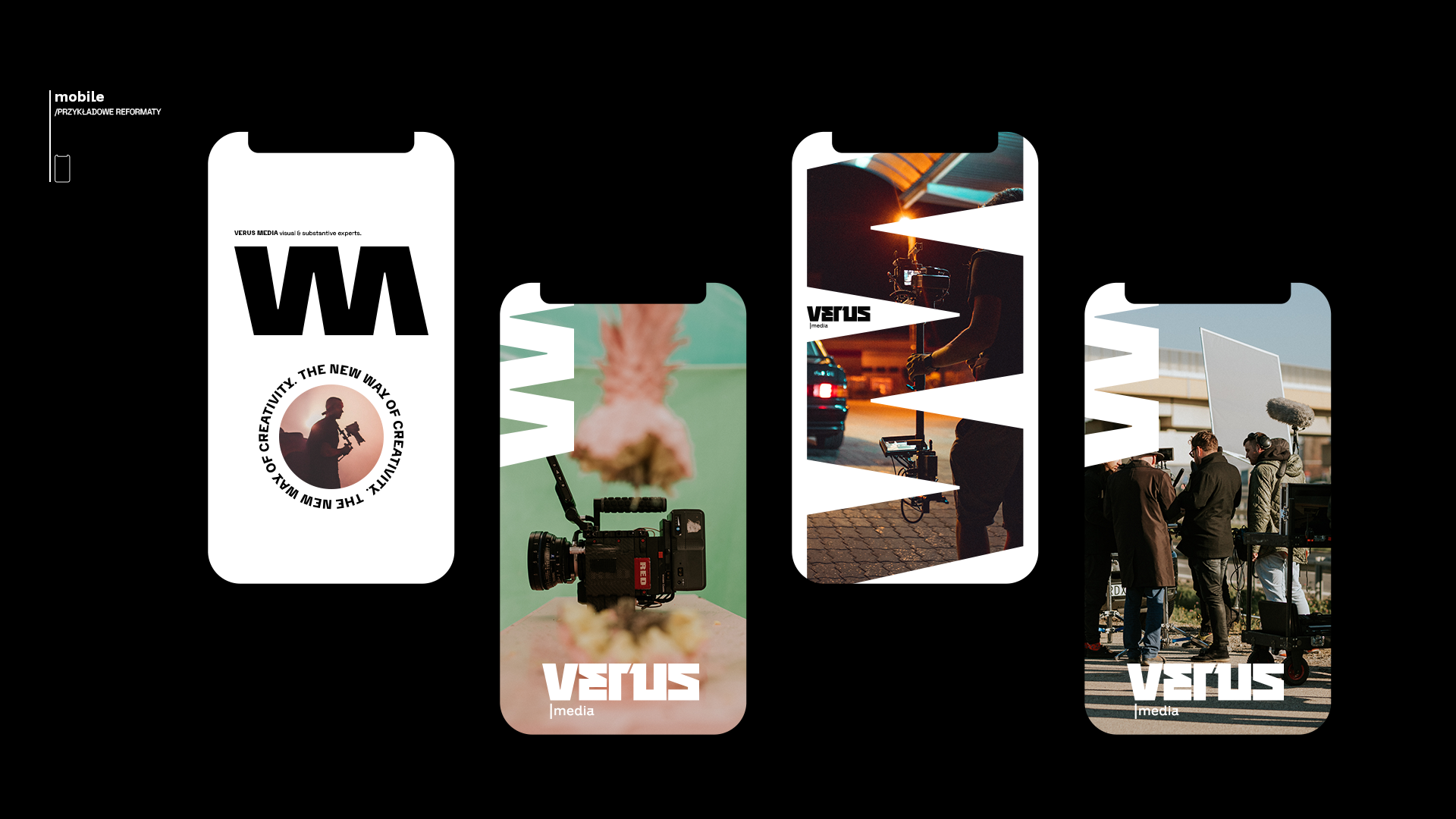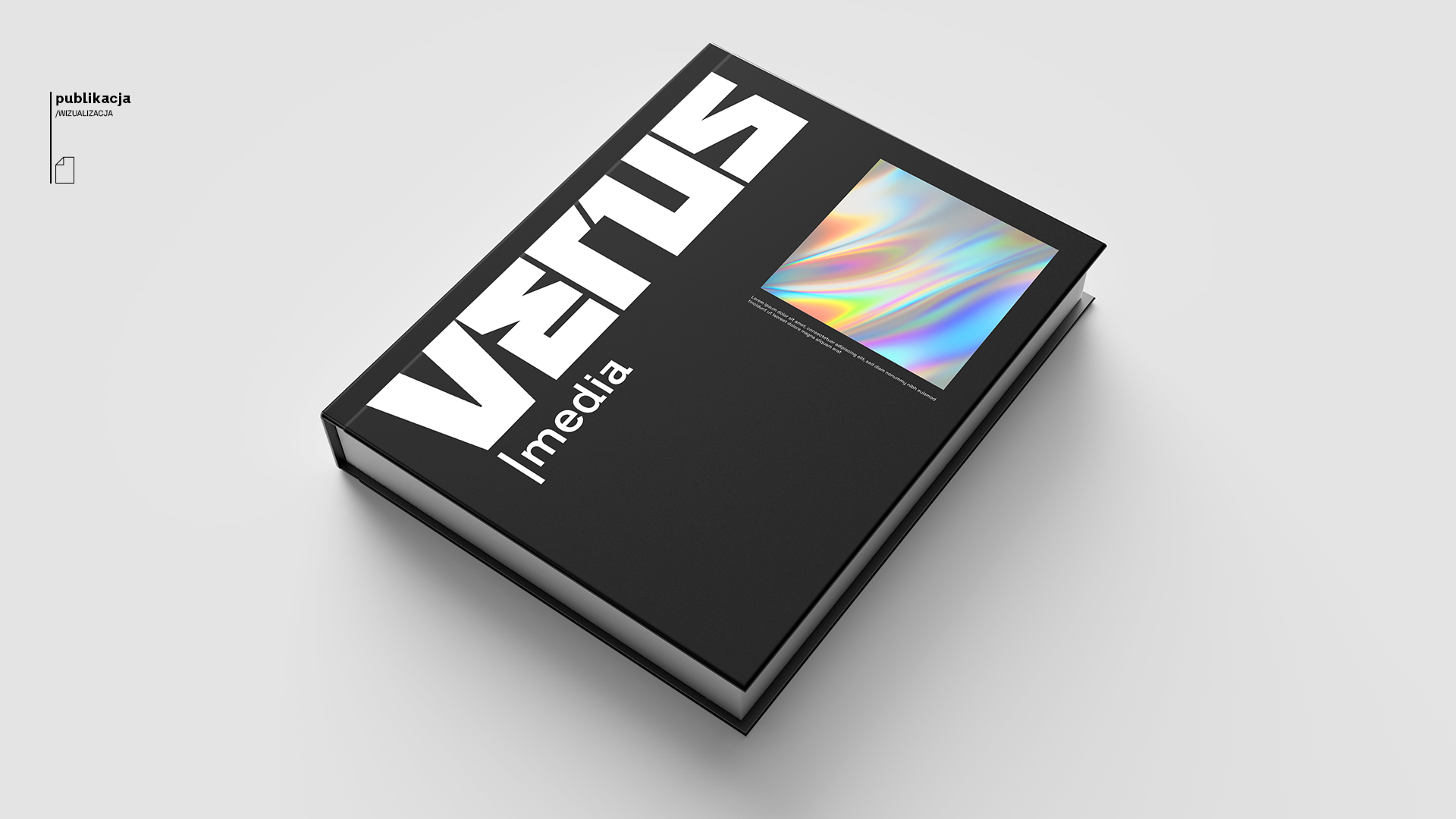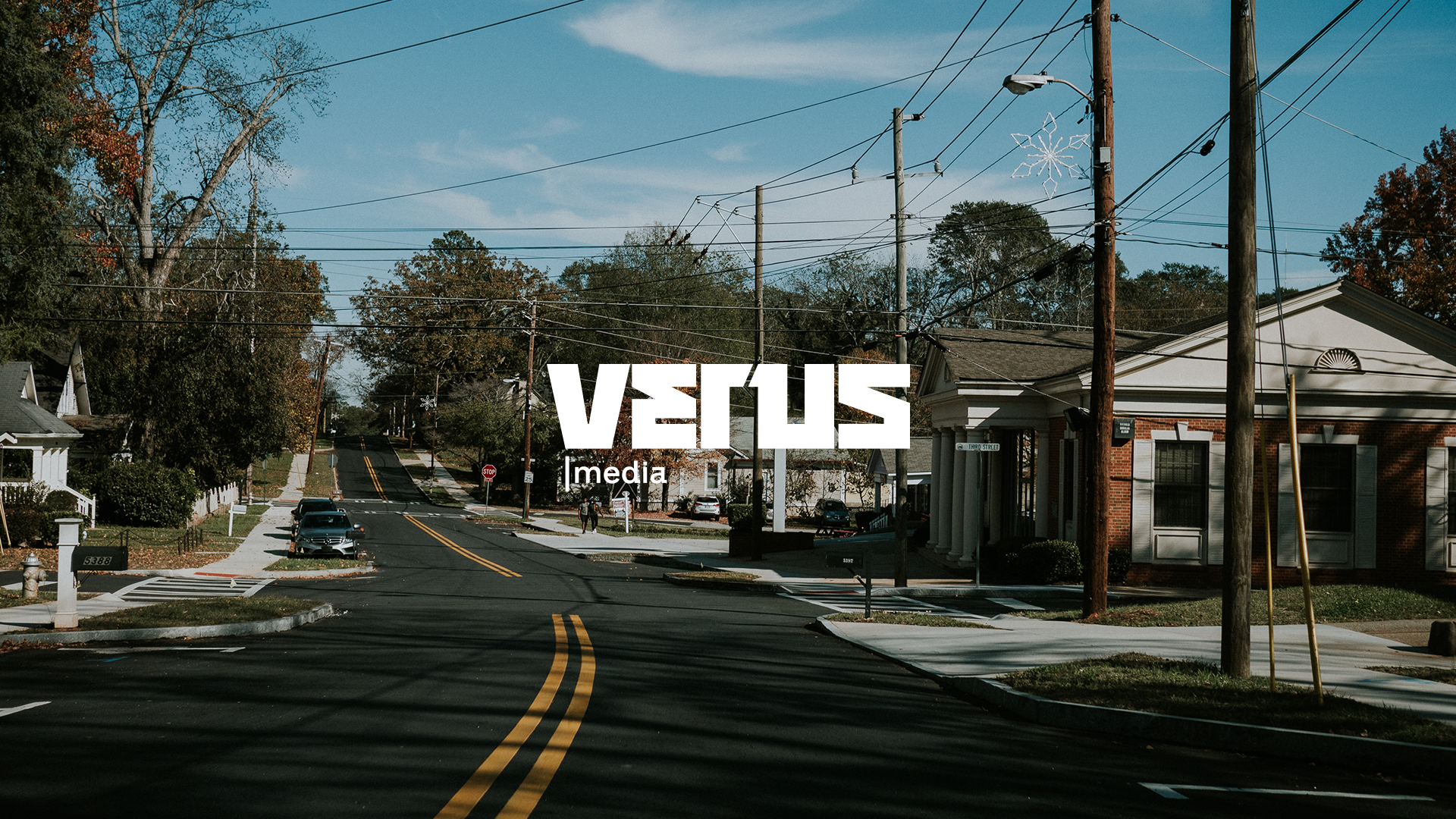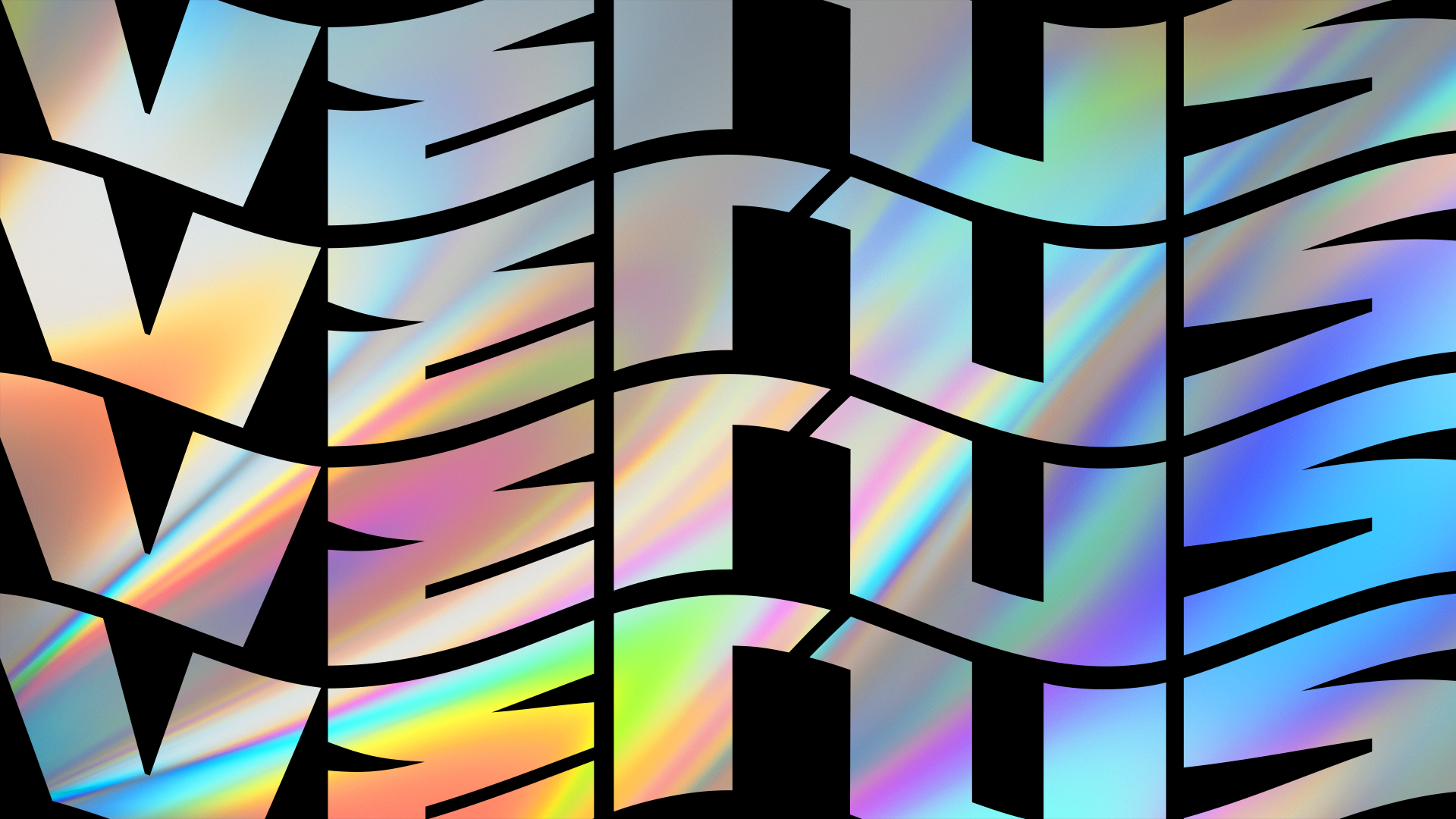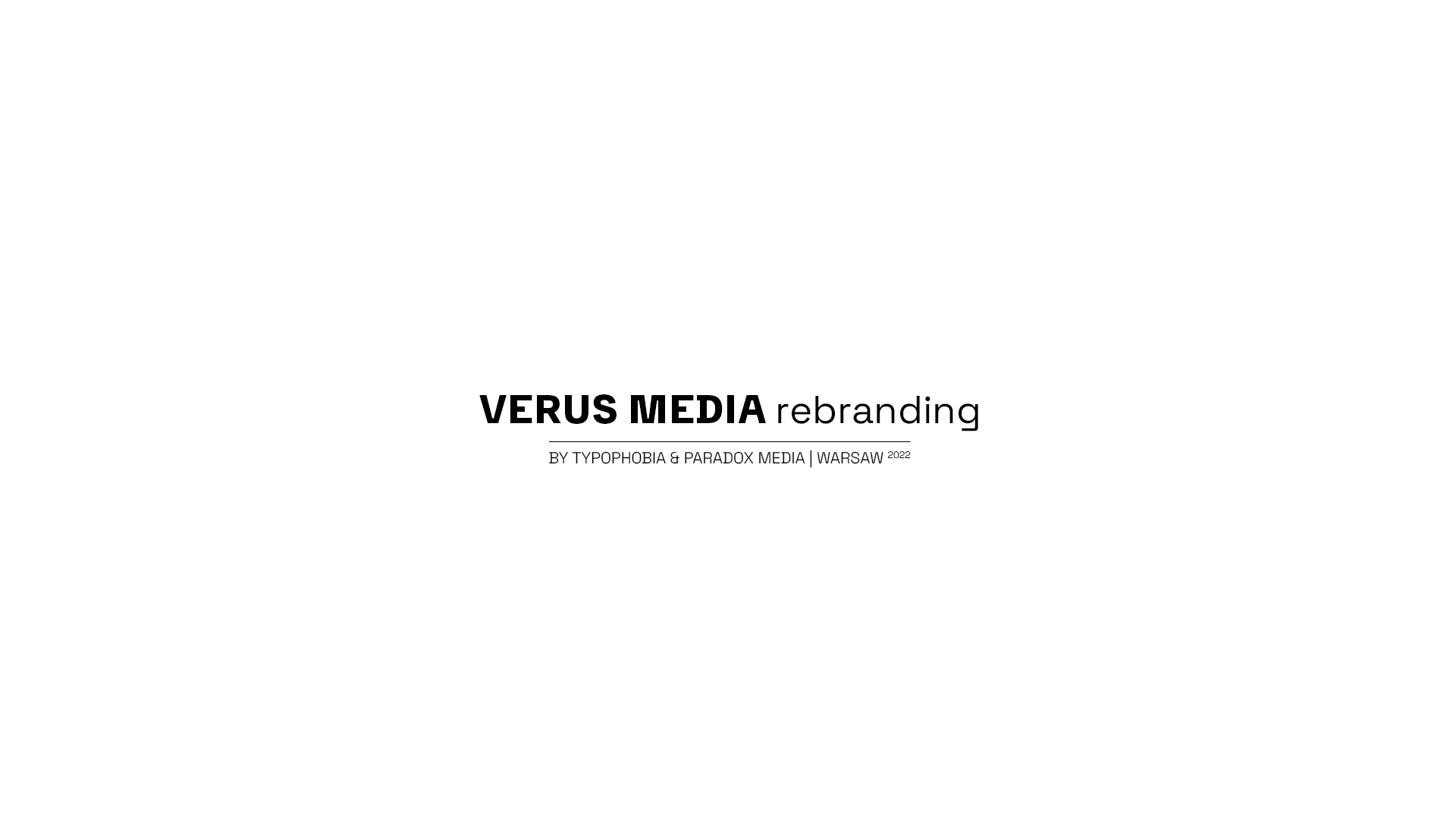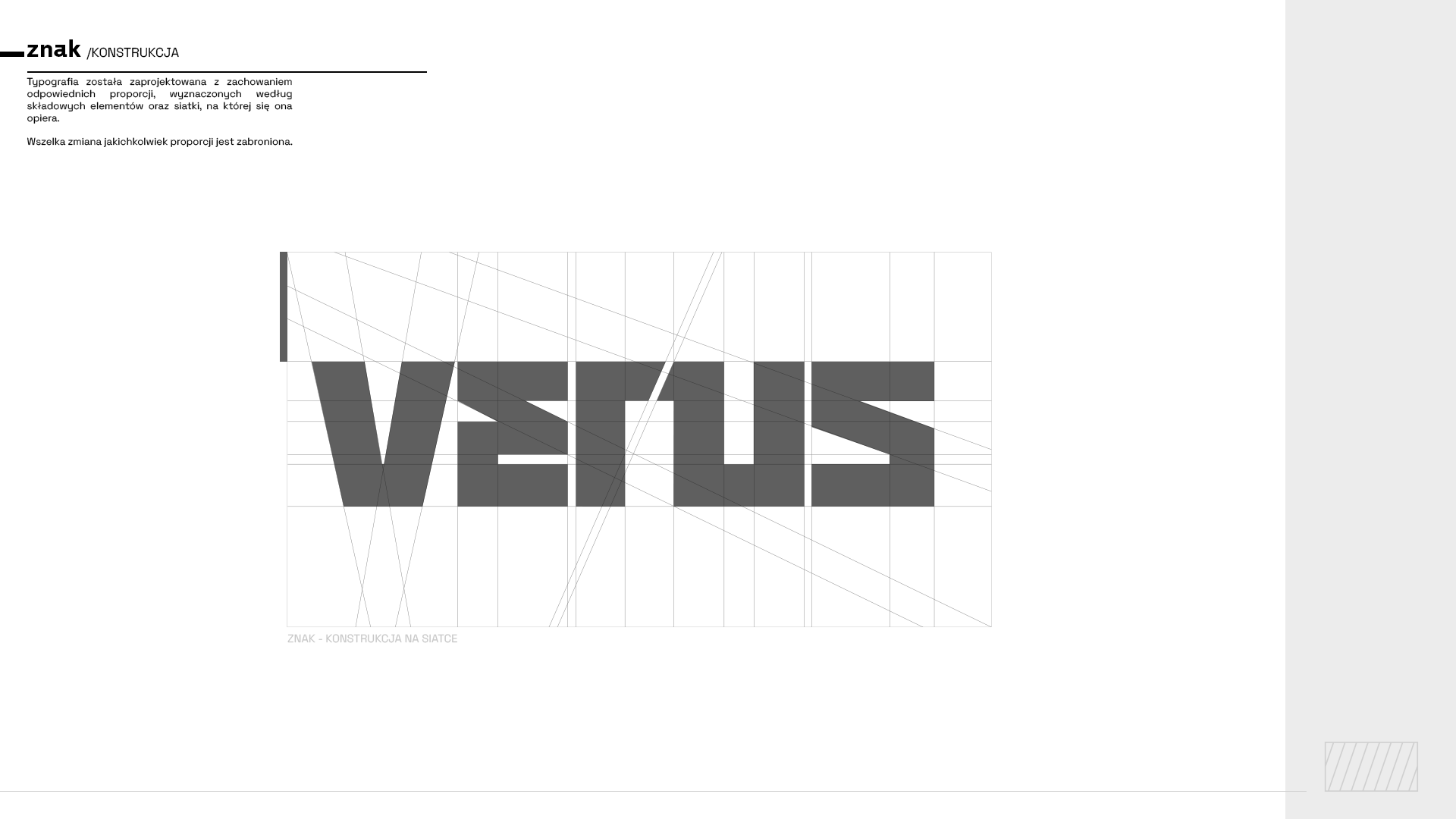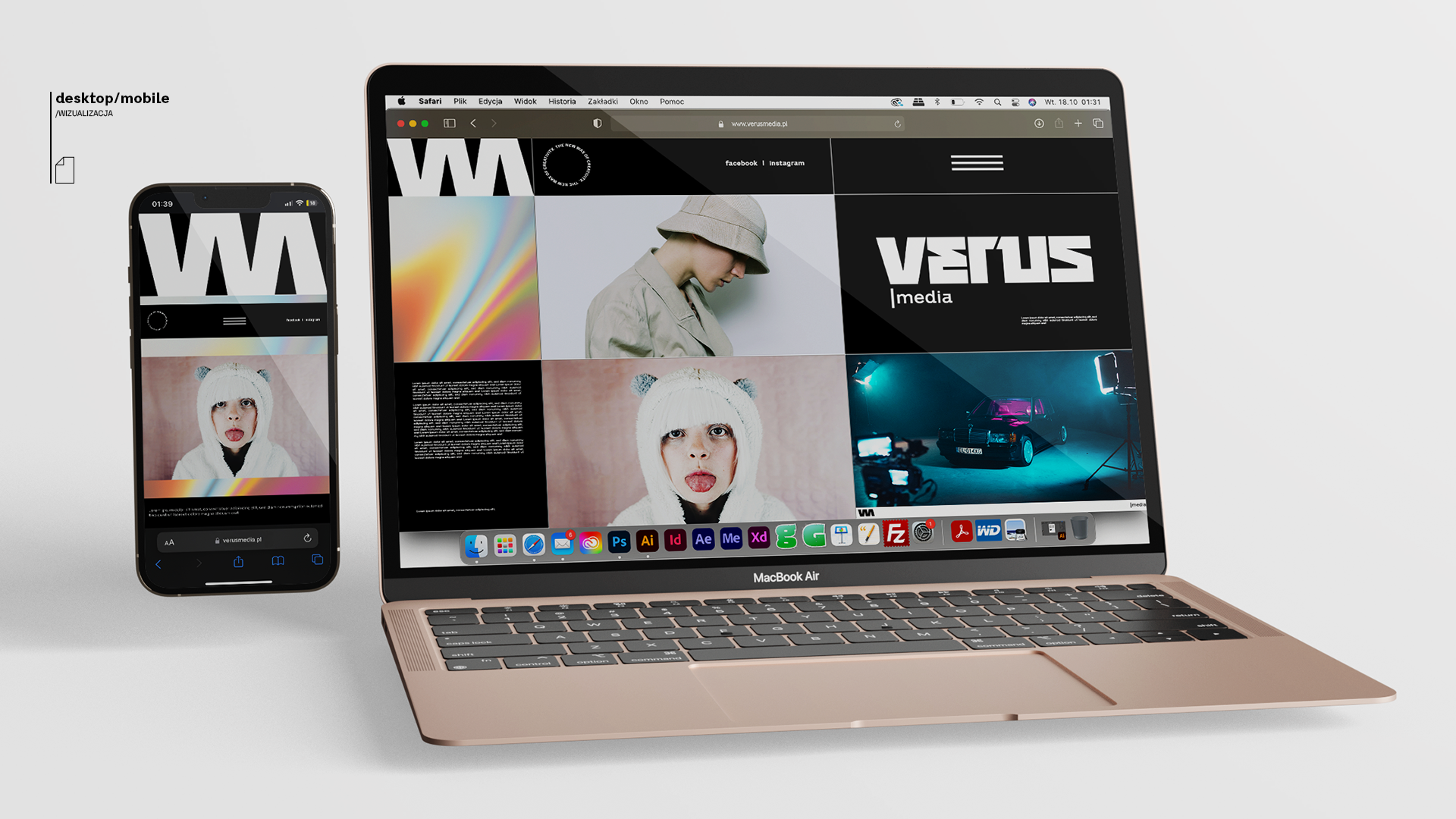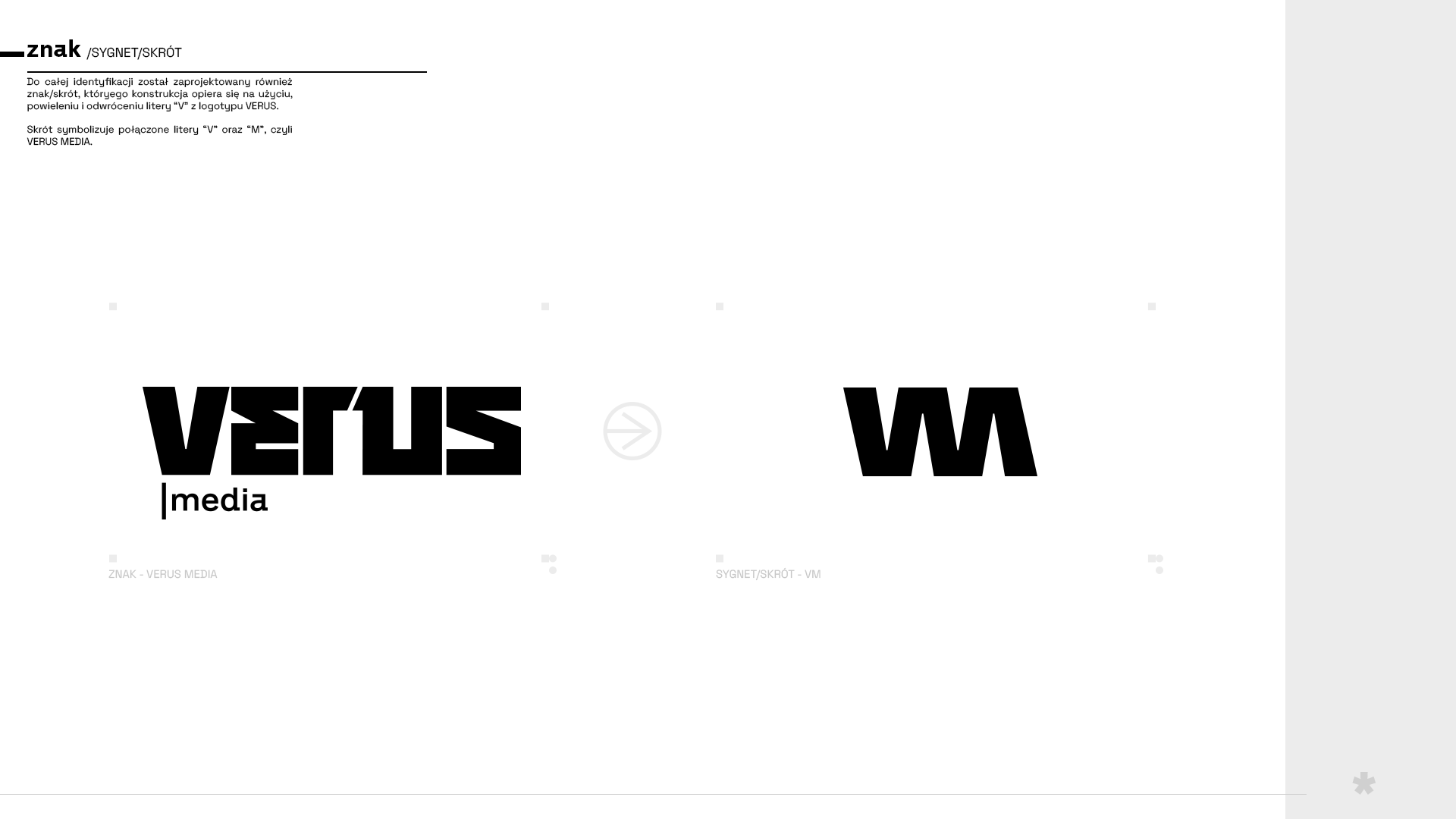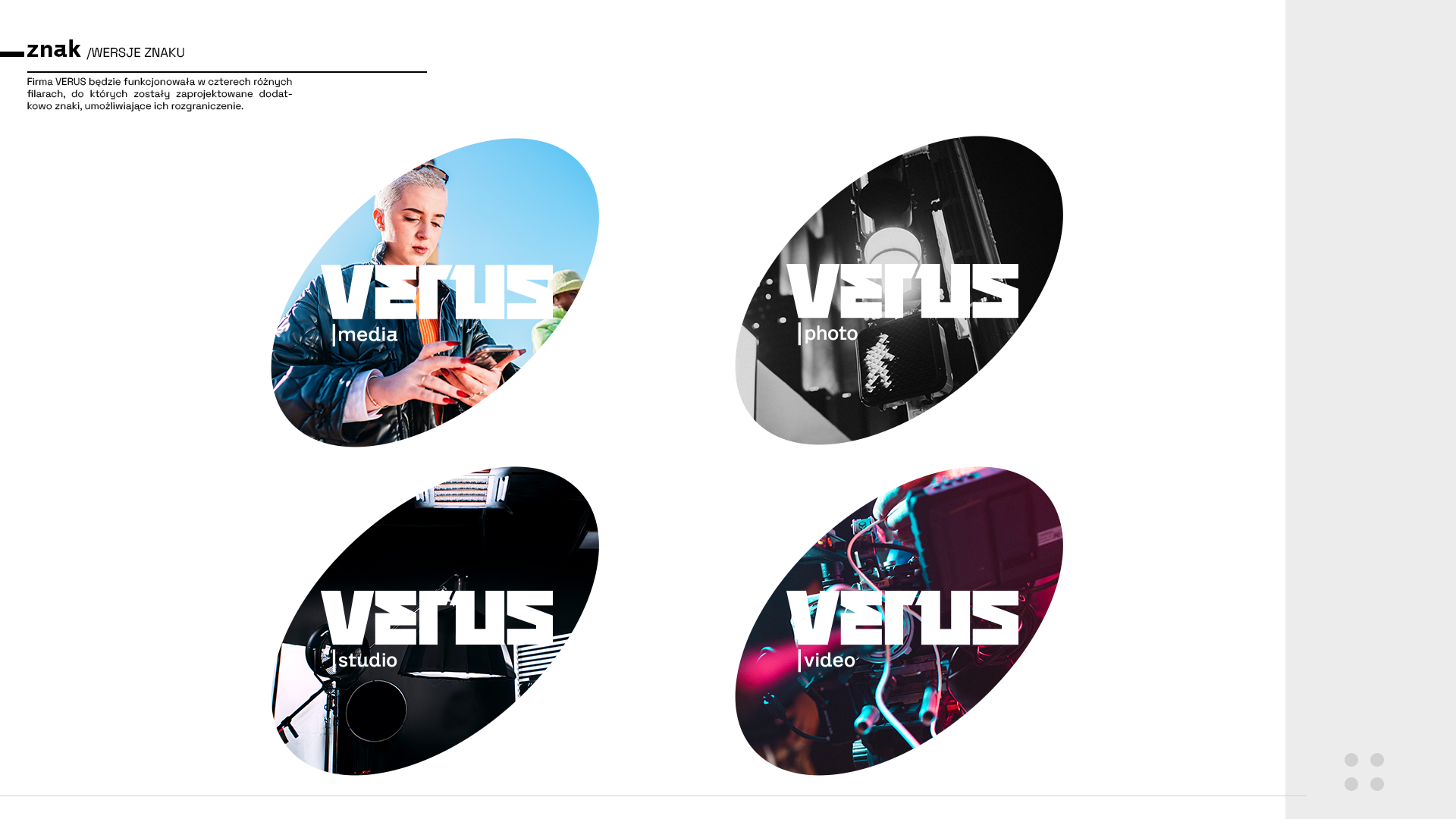
EN: The main assumption was to refresh the brand image by designing a new sign with a more modern, sans-serif typography, which will be able to work both as a new identification, but also as a visual value in itself.
PL: Głównym założeniem było odświeżenie wizerunku marki poprzez zaprojektowanie nowego znaku z bardziej nowoczesną, bezszeryfową typografią, który będzie mógł pracować zarówno jako nowa identyfikacja, ale również jako walor wizualny sam w sobie.